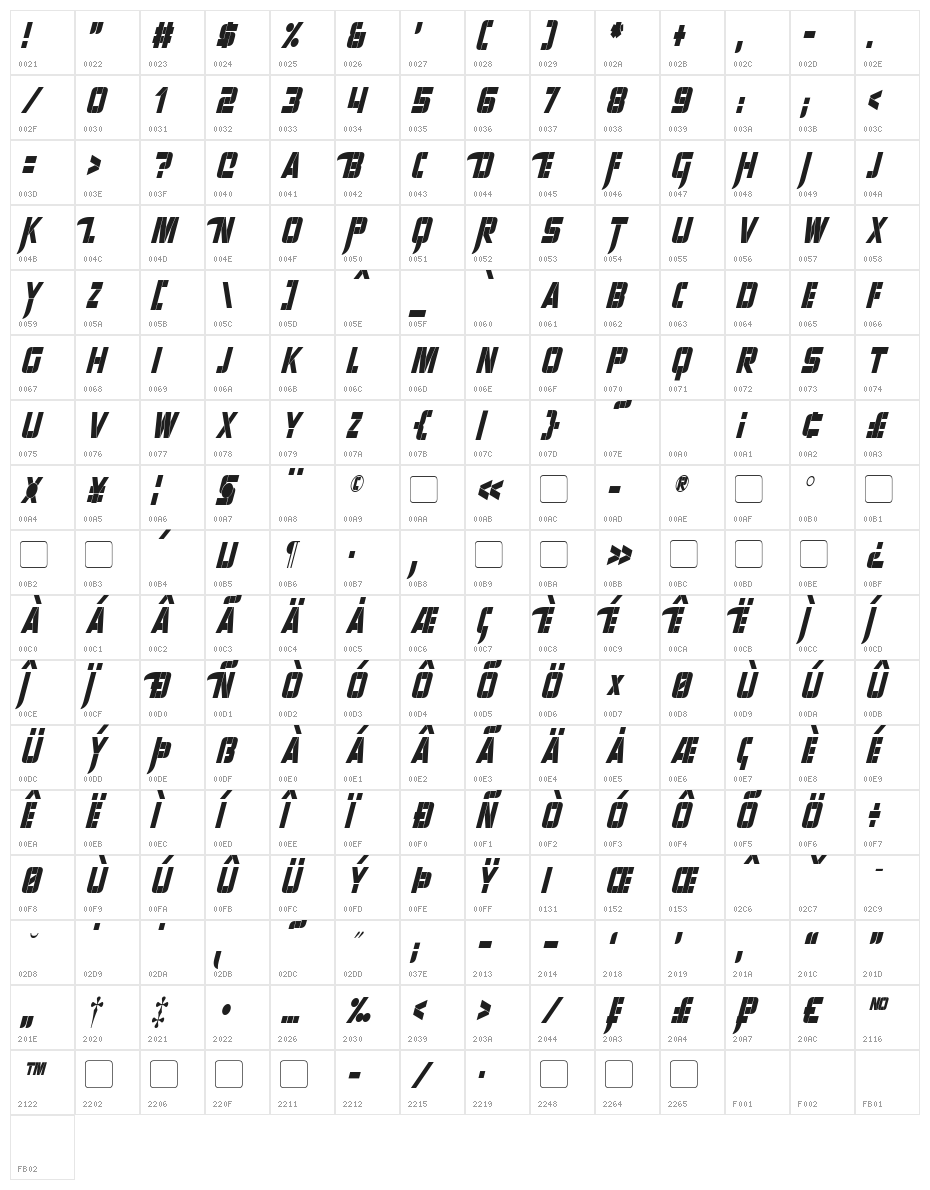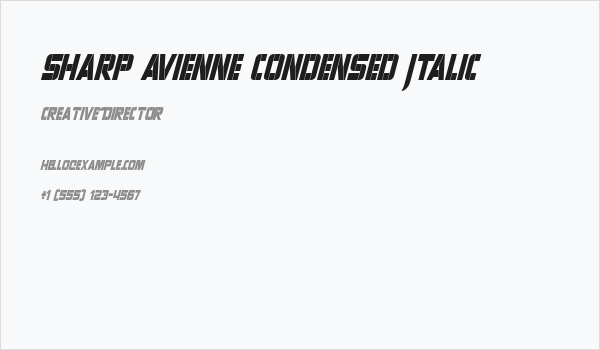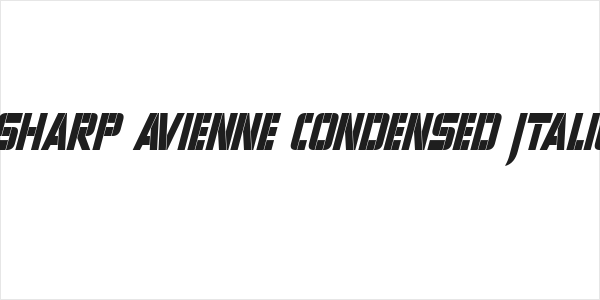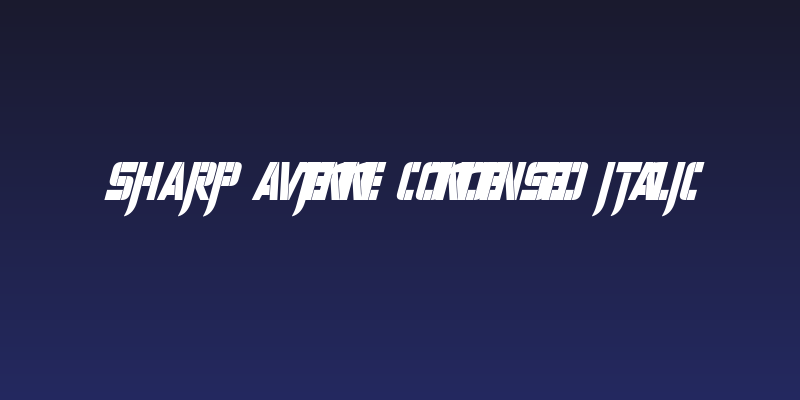
Sharp Avienne Condensed Italic Font
Sharp Avienne Condensed Italic Description
This font features a bold, italicized style with a condensed width, giving it a dynamic and modern appearance. The characters are sharply angled, creating a sense of movement and energy. The uppercase and lowercase letters maintain a consistent style, with the uppercase being more prominent and the lowercase slightly more compact. The numerals are equally bold and maintain the same condensed, italicized style as the letters. Special characters are designed to match the overall aesthetic, ensuring uniformity across all glyphs. The font's high contrast in stroke thickness adds to its striking visual impact, making it ideal for attention-grabbing designs.
| Proposed Projects | Ideal for sports branding, dynamic posters, modern advertising, and eye-catching headlines. |